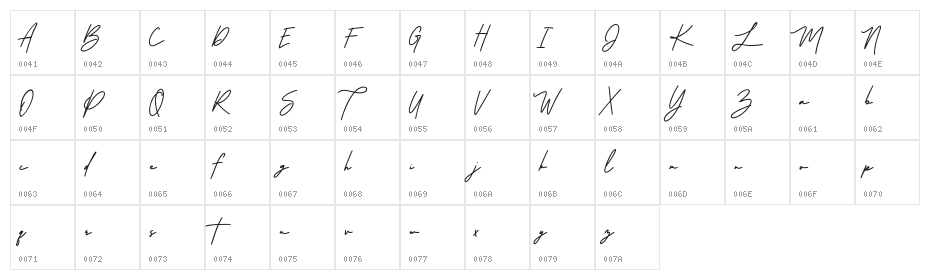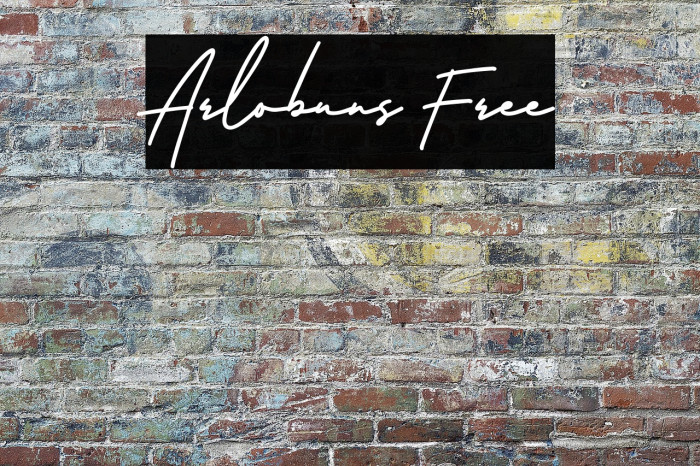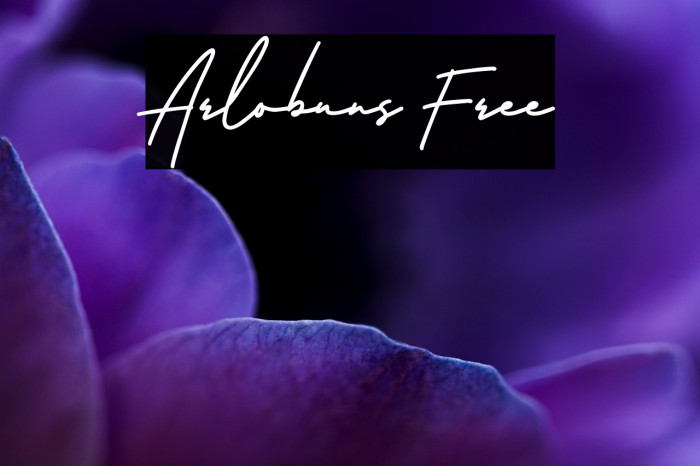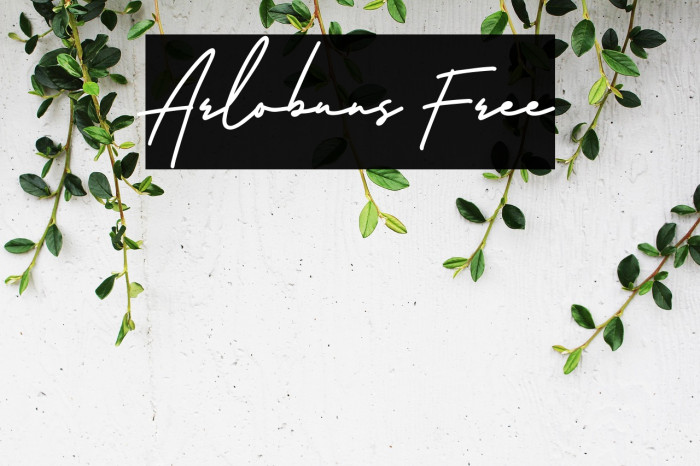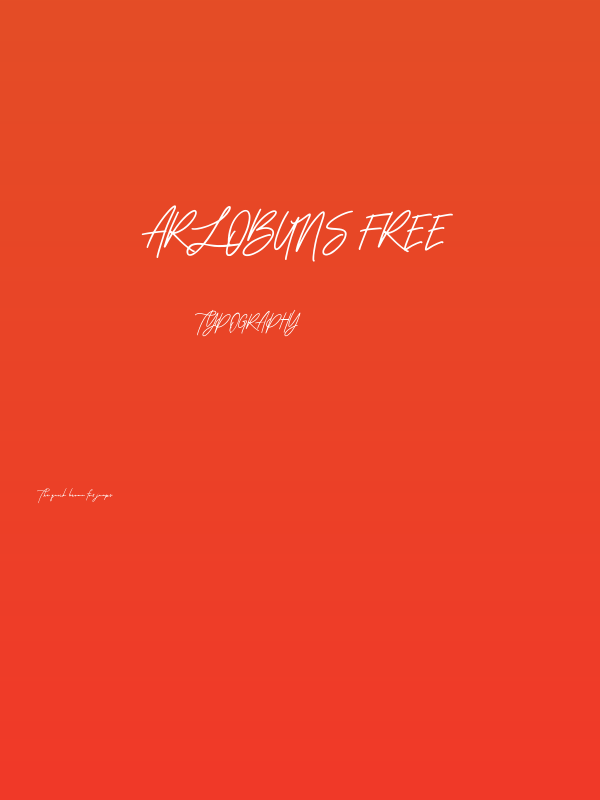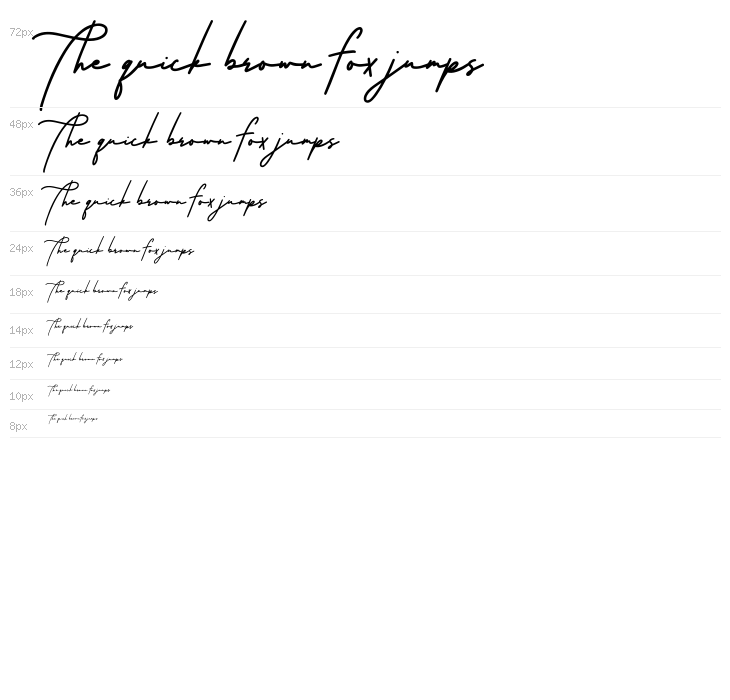
Arlobuns Free Font
Arlobuns Free Description
This font exudes a modern, handwritten charm with its fluid, cursive strokes. The letters are elegantly connected, giving a sense of continuity and flow. The uppercase letters are bold and expressive, while the lowercase characters maintain a consistent style, enhancing readability. The numerals and special characters are crafted with the same attention to detail, ensuring a cohesive look across all text. The overall appearance is both stylish and approachable, making it suitable for a variety of creative applications. Its unique style can add a personal touch to any project, from invitations to branding materials.
| Proposed Projects | Ideal for wedding invitations, personal branding, greeting cards, and artistic projects. |